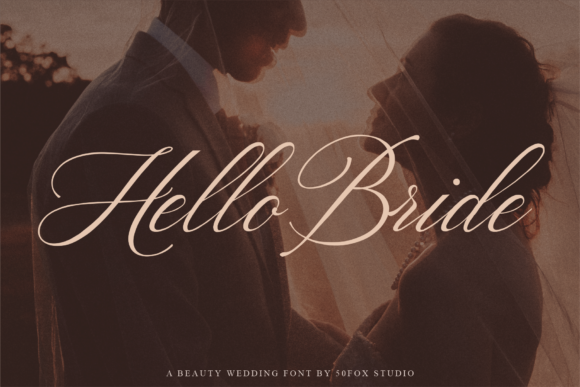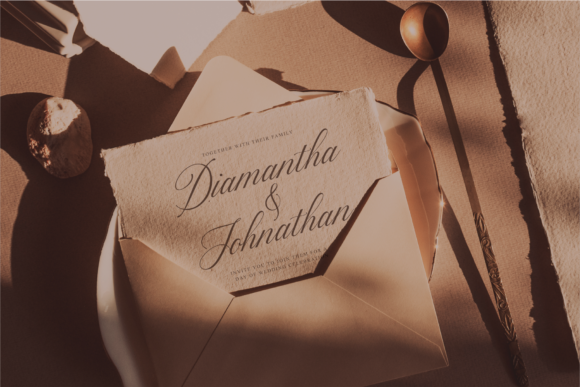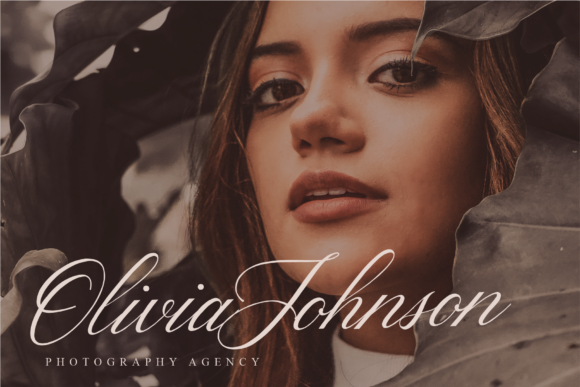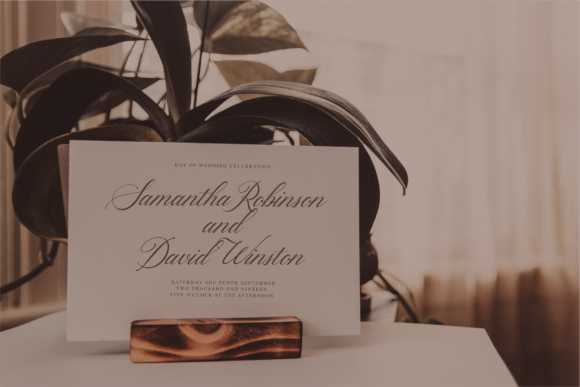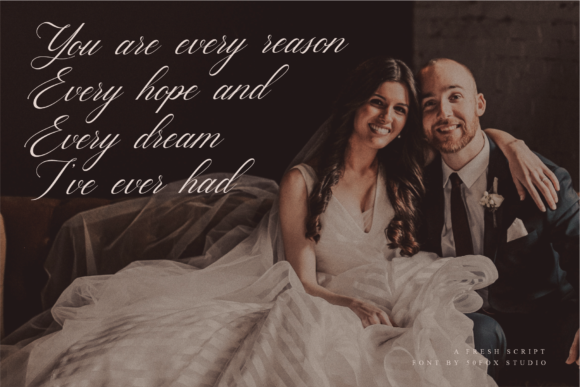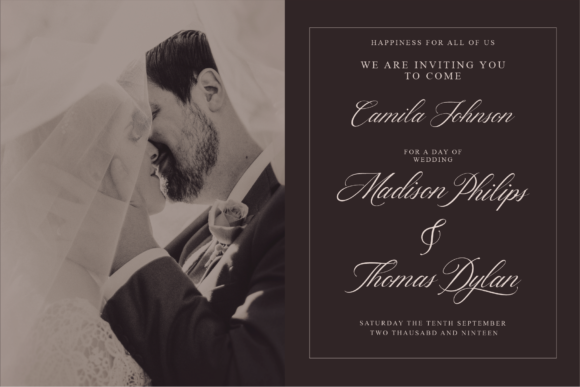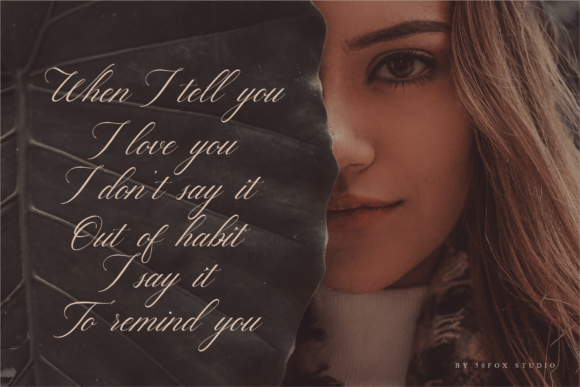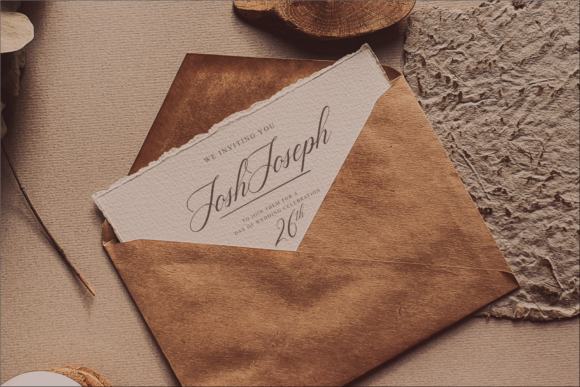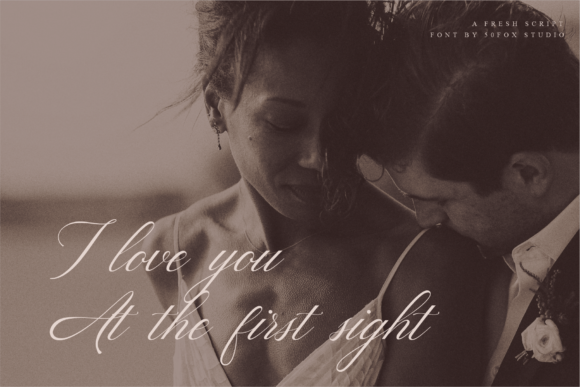
Hello Bride Font
Hello Bride is an enchanting handwritten font. This versatile script font has a wide spectrum of applications ranging from greeting cards to headlines and is guaranteed to add a romantic feel to your next project.